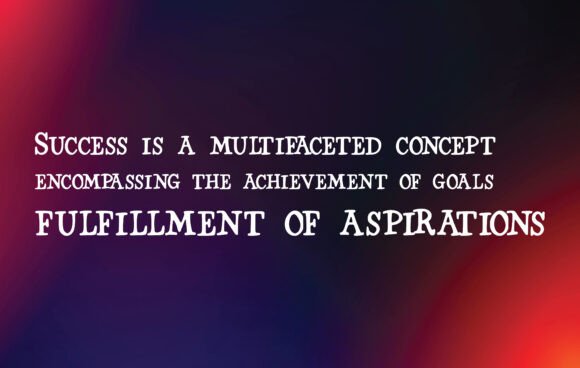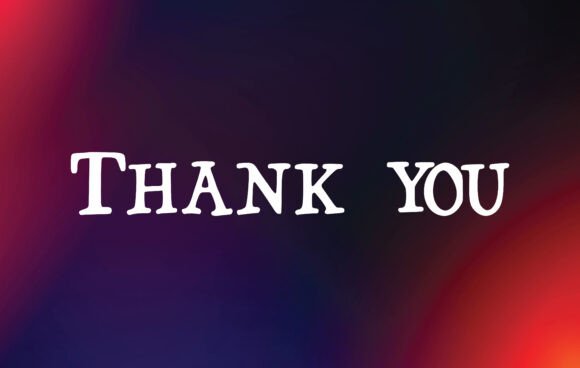
The Boden Font: A Beautiful Handwritten Font to Elevate Your Designs
I’ll never forget the time I was working on a branding project for a client who wanted a logo that exuded warmth and personality. I had a clear vision of what I wanted to create, but I was struggling to find the right font to bring it all together. That’s when I stumbled upon the Boden font, and it was love at first sight! 💕
The Boden font is a lovely and beautiful handwritten font that has the potential to take your creative ideas to the highest level. It’s the perfect choice for creating eye-catching logos, branding, and quotes that will leave a lasting impression on your audience.
An Honest Review of the Boden Font
What I Love About the Boden Font ✨
- 💫 Its unique and elegant handwritten style, perfect for creating sophisticated designs
- ✅ The font’s excellent legibility, making it easy to read and understand
- 🎨 The wide range of OpenType features, including glyphs and stylistic alternates, that allow for endless creativity
- 👍 The font’s versatility, suitable for a variety of design projects, from logos and branding to quotes and social media graphics
- ⚠️ The font may not be suitable for body text, as it’s best used for headlines and titles
- 🤔 Some users may find the font’s handwritten style too ornate or decorative for certain projects
The Story Behind the Boden Font
The Boden font was designed by a talented typographer who wanted to create a font that would capture the essence of handwritten elegance. The font’s unique style is inspired by traditional calligraphy and is perfect for creating sophisticated designs that exude warmth and personality.
Q: What is the Boden font best used for?
A: The Boden font is best used for creating eye-catching logos, branding, and quotes that require a touch of elegance and sophistication.
Q: Is the Boden font suitable for body text?
A: No, the Boden font is best used for headlines and titles, as it may not be suitable for body text due to its ornate and decorative style.